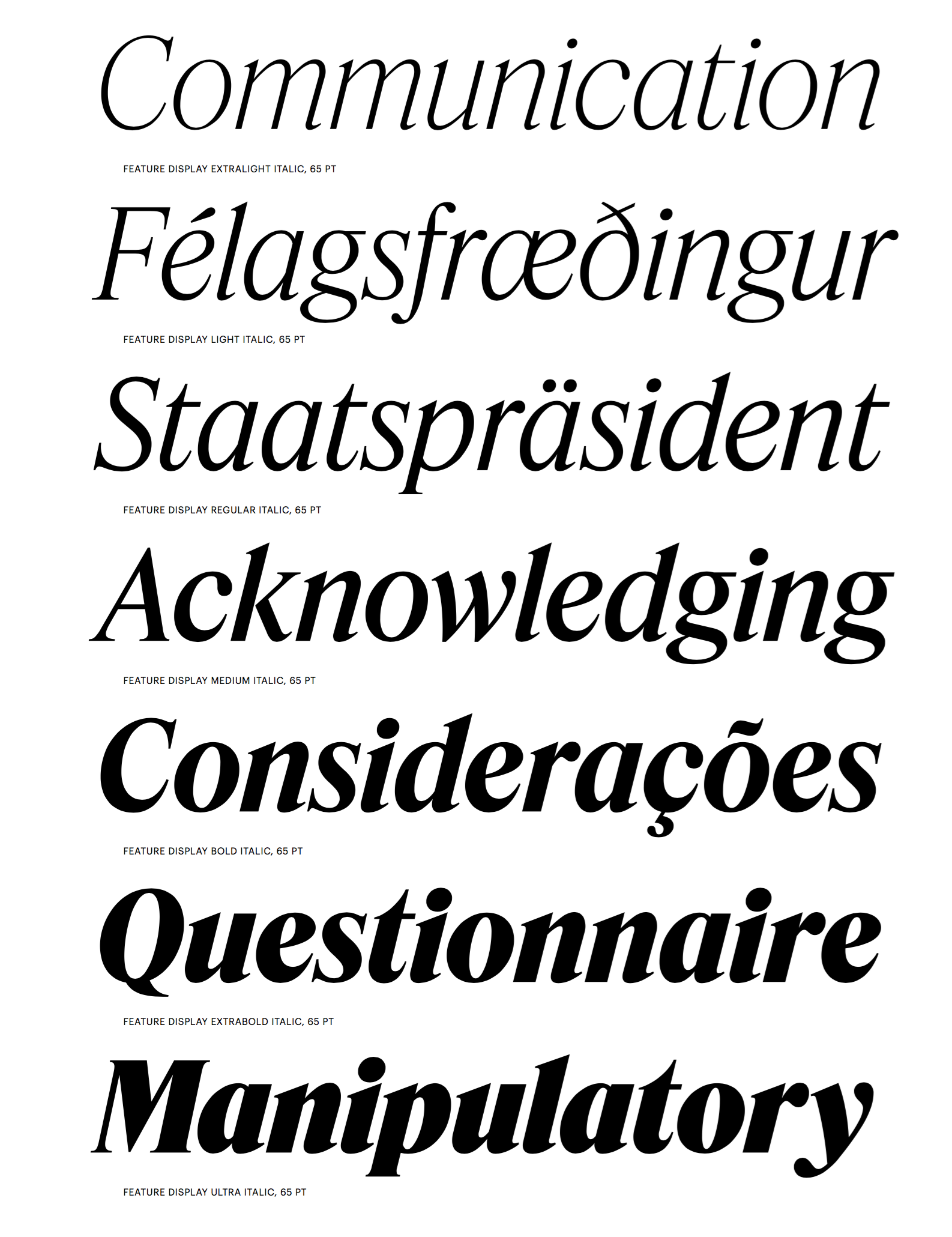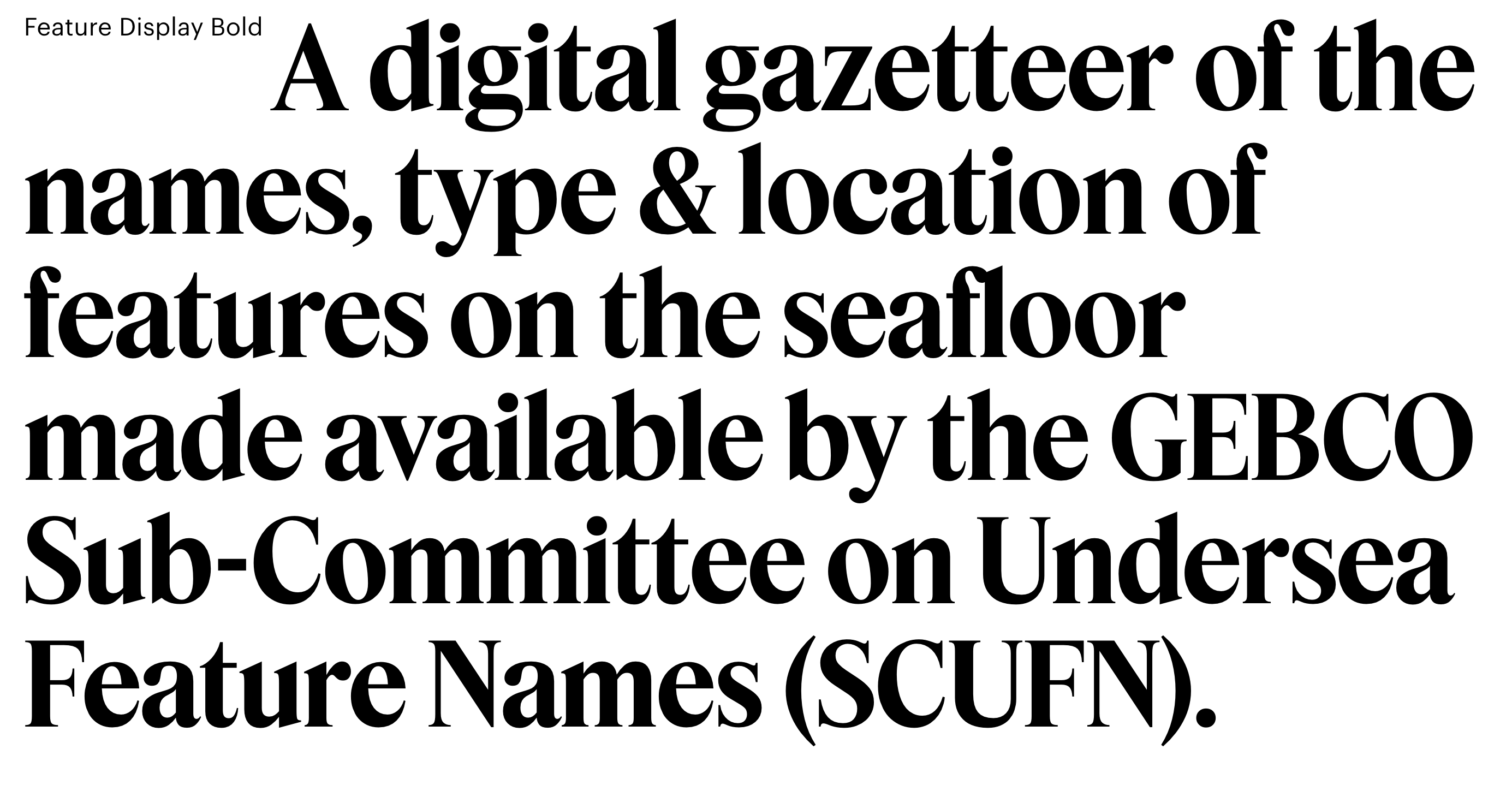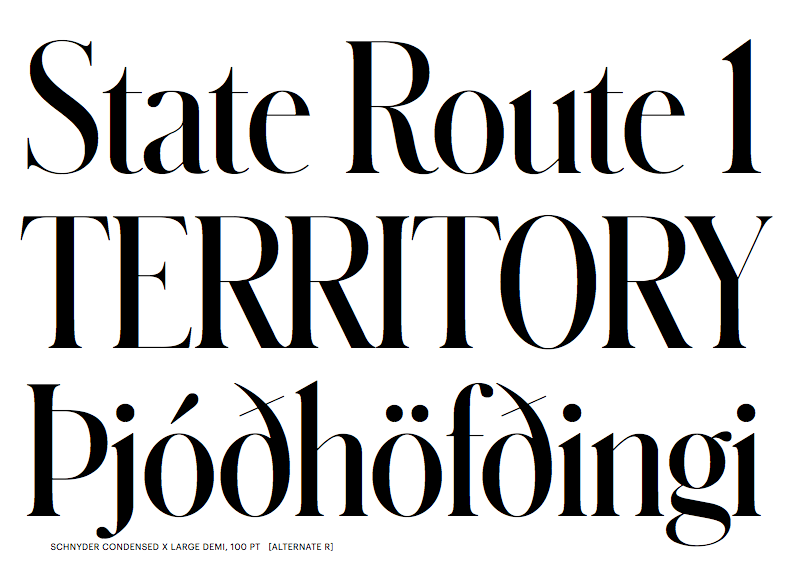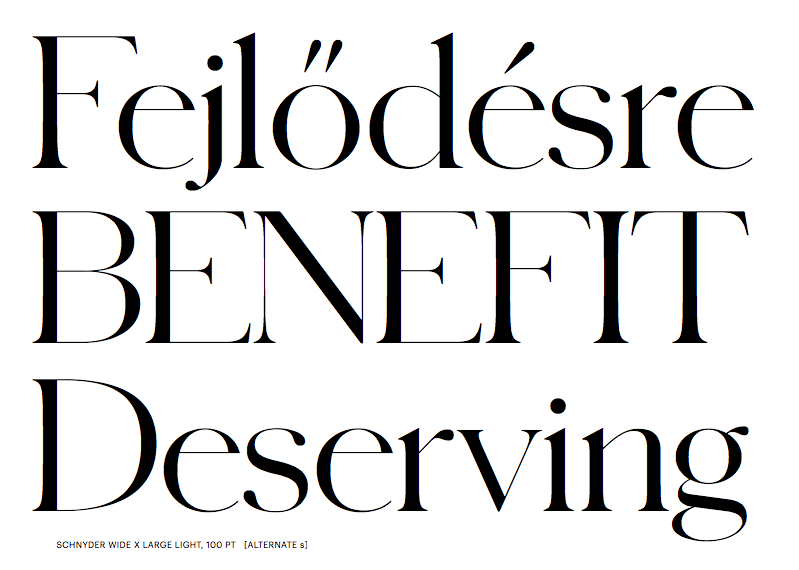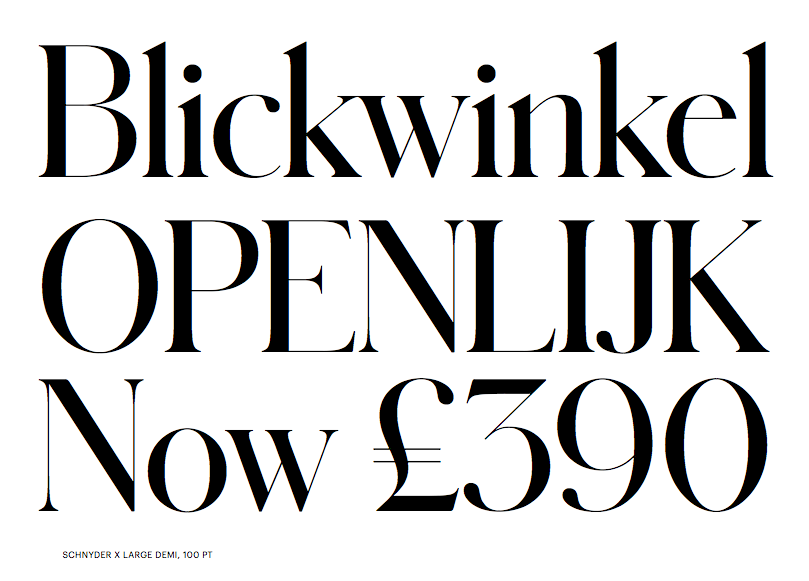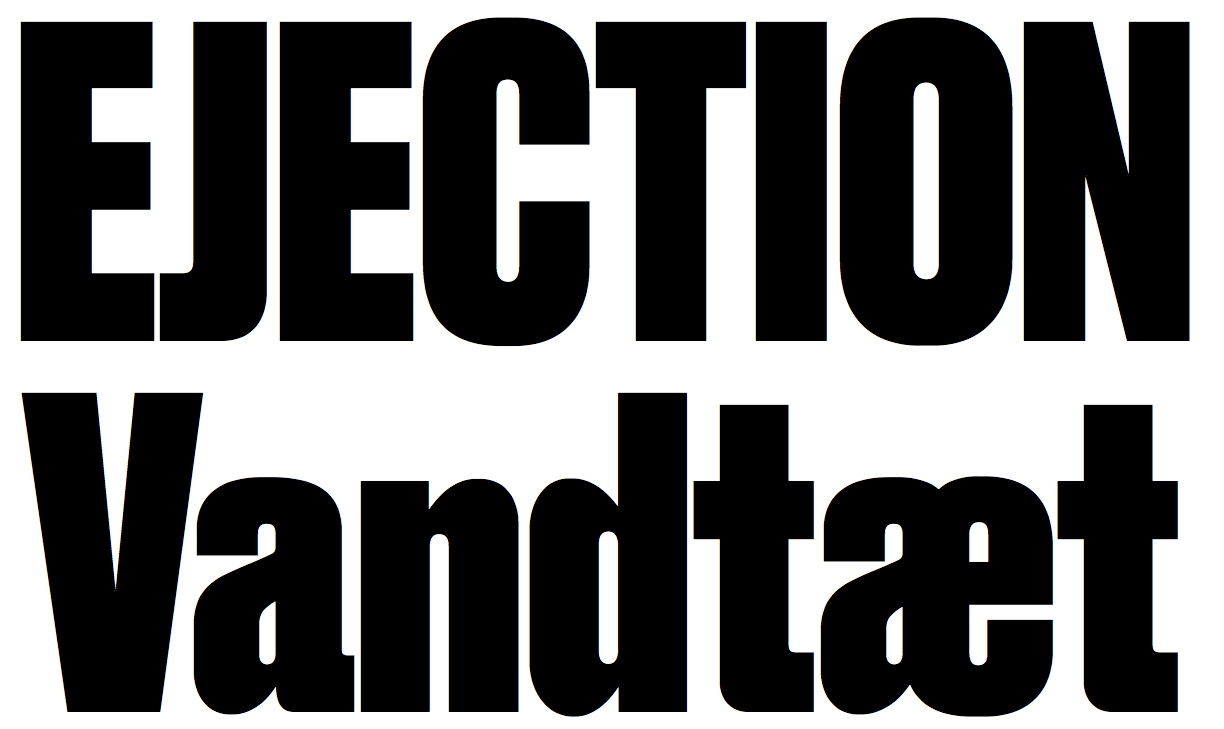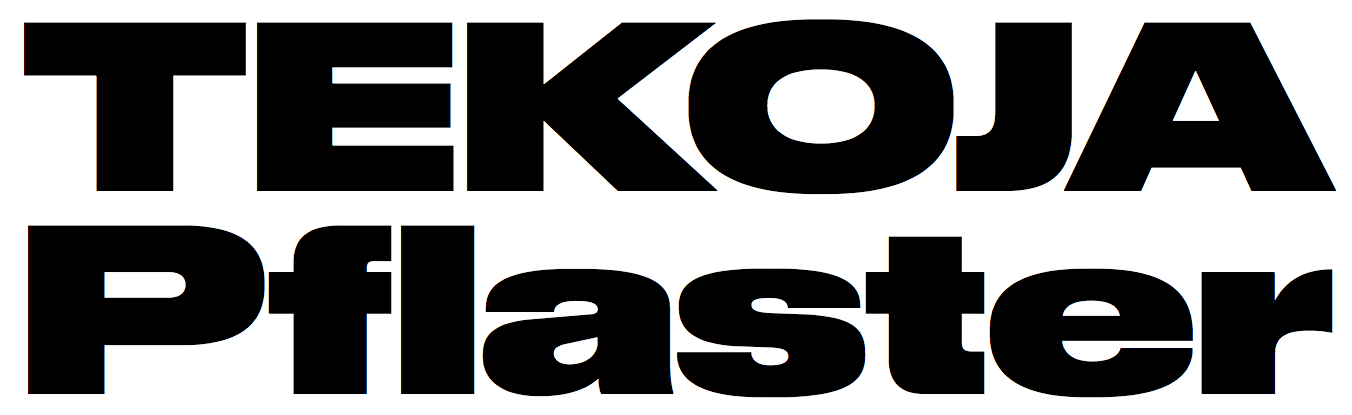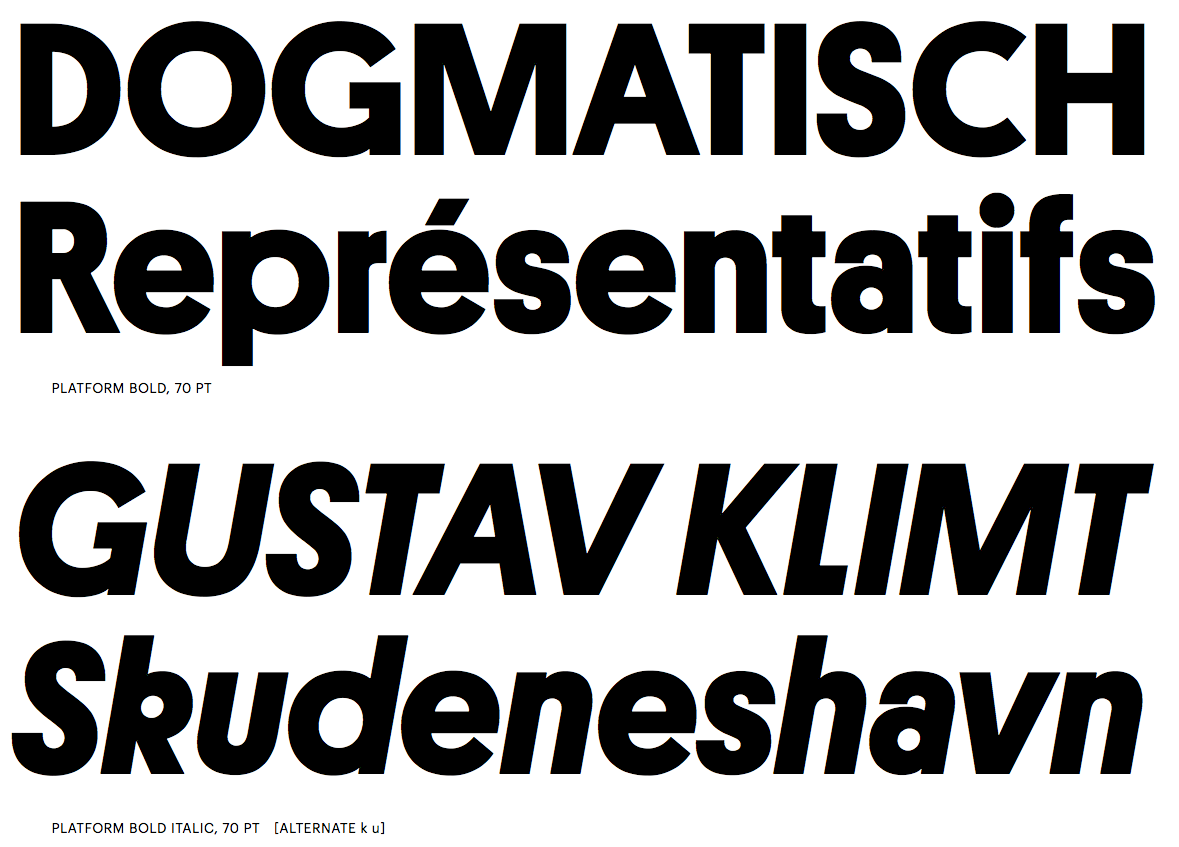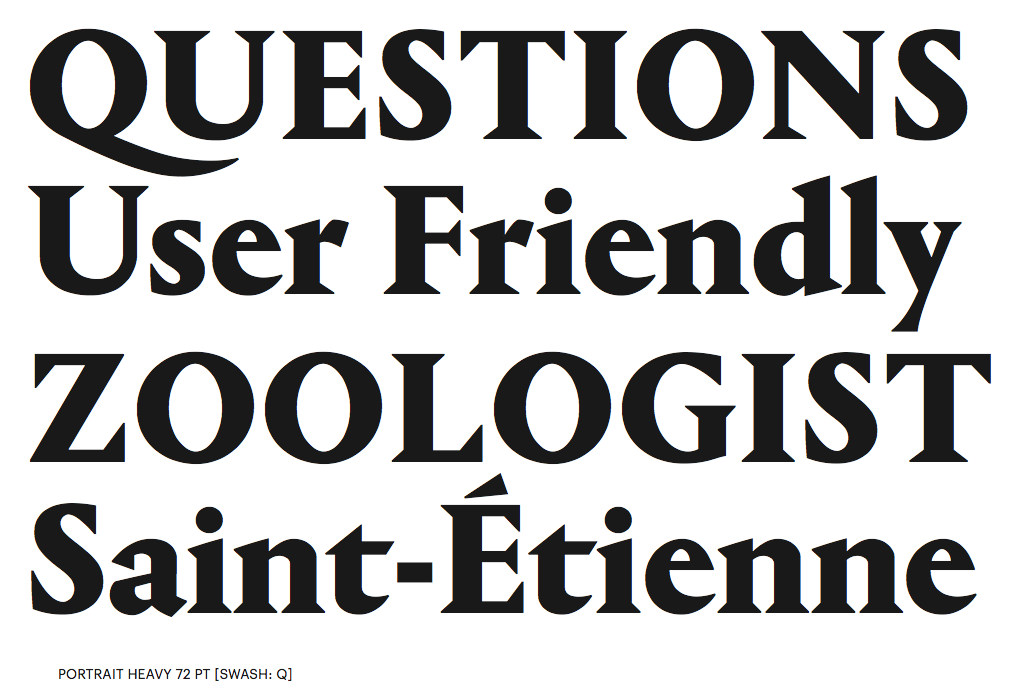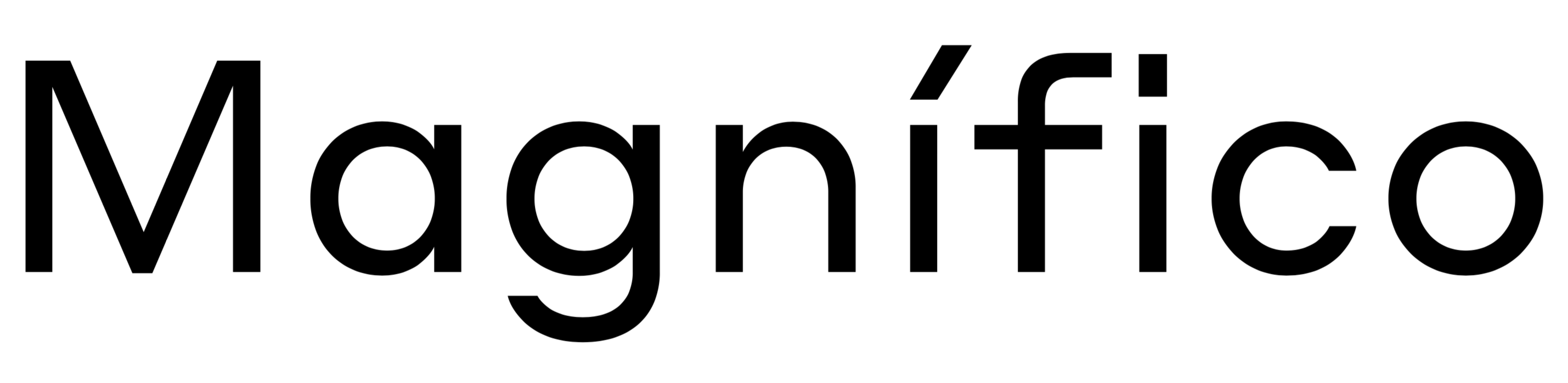
Berton Hasebe
Berton Hasebe (b. 1982, Honolulu, HI) moved from Hawaii to study and work in Los Angeles, where he obtained a BA from Otis College of Art and Design in 2005.
In 2007 he moved to the Netherlands to study type design through the Type and Media Masters course at The Royal Academy of Art in the Hague (KABK). Berton has resided in New York since 2008, and was a staff designer with Commercial Type from 2008 to 2013, when he left to start his own studio. Berton's typefaces have been awarded by the New York and Tokyo Type Directors Club, the ATypI, and the Brno Biennial. In 2012 he was awarded Print magazine's 20 Under 30 Award. Berton currently teaches typography at Parsons and has taught type design at The University of the Arts in Philadelphia and the Type@Cooper Extended Program at The Cooper Union in New York.
His typeface Alda was designed to function at very small sizes while remaining expressive. The bold is macho and delicate at the same time. Alda won an award at TDC2 2009. In the same year Alda was also selected by the Tokyo Type Directors Club to be included in its annual publication. It was published by Emigre.
At Commercial Type he co-designed the extensive family Stag with Christian Schwartz and Ross Milne. Stag started as a small family of slab serifs commissioned for headlines by the US edition of Esquire magazine and eventually grew into a sprawling multi-part family including a flexible sans companion and two additional special effects display variants. Stag Stencil followed in 2009.
In 2010, he published the geometric sans serif family Platform at Commercial Type. It has a gorgeous circle-based hairline.
In 2013, he published a 4-family 20-style French Renaissance typeface family called Portrait (+Text, +Inline, +Text), still at Commercial Type: Portrait started out as an experiment in drawing a display typeface that managed to be both beautiful and brutal, and both classical and minimalist. While its lighter weights are quietly elegant, the heavier weights show the influence of chiseled woodcut forms. Portrait draws its primary inspiration from the Two-line Double Pica Roman (equivalent to 32pt in contemporary sizes) cut by French punchcutter Maître Constantin around 1530 for the printer Robert Estienne. Portrait replaces the delicately modeled serif treatments of Constantin's original with simple, triangular Latin serifs, reimagining the Renaissance forms in a contemporary light. Portrait Text resembles the text types attributed by the printing historian Hendrik Vervliet to Constantin and used by the printer Estienne in the 1530s, which had a lighter and more open texture than the text types that preceded them, and marking the move to more elegant type that culminated in the work of Claude Garamont. The stripped-back simplicity of the Latin serifs gives Portrait a cleaner and sharper tone than a typical Renaissance oldstyle-influenced text face, bringing an active personality to text.
In 2015, he created the sans headline typeface families Druk, Druk Text, Druk Wide, Druk Condensed and Druk Text Wide: Druk is a study in extremes, featuring the narrowest, widest, and heaviest typefaces in the Commercial Type library to date. Starting from Medium and going up to Super, Druk is uncompromisingly bold. It was meant as a companion of Neue Haas Grotesk. Of the families in the Druk collection, Druk Condensed is the most explicit homage to Willy Fleckhaus. Originally designed for the 2011 Year in Review issue of Bloomberg Businessweek, its flat sides make letters and words snap together in a clean and satisfying way.
For MittMedia, he made the corporate sans typeface Duplex (2016).
Still in 2016, Berton Hasebe published Styrene at Commercial Type. Their blurb: Styrene, a new sans serif by Berton Hasebe, is his latest exploration of proportion and simplicity in type design. The initial inspiration for the family was a charmingly awkward sans serif shown in an early 20th century Dutch type specimen. However, Styrene has an entirely ahistorical attitude. Its name was inspired by the purposefully synthetic feeling to its curves and geometry. The family is characterized by its proportions: typically narrow characters like f j r and t are hyperextended and flattened, adding openness in unexpected places. Styrene's two widths offer different textures in text: version A is dogmatically geometric, with a stronger overall personality, while version B is narrower for more reasonable copyfit, though not truly condensed.
Schnyder (Commercial Type) was designed by Berton Hasebe and Christian Schwartz for the 2013 redesign of T, the New York Times Style Magazine by creative director Patrick Li and his team. Schnyder has the high contrast typical of a fashion typeface and has a large number of alternates. The stem thicknesses in each weight are identical across the widths, an unusual feature that allows the widths to be mixed freely in headlines, even within single words. It features three weights, four widths, and four optical sizes. Production assistance by Hrvoje Zivcic and Miguel Reyes. Schnyder Wide, Condensed and X Condensed were published in 2018.
In 2020, he released Review (Condensed, Poster, Regular) at Commercial Type, which writes: Berton Hasebe originally drew Review (née Kippenberger) for T: The New York Times Style Magazine. In 2018, a new editor in chief pushed for a complete reimagining of the magazine. What had primarily been an image-focused publication evolved into a text-driven one, with the squarish, commanding Review doing much of the heavy lifting. To facilitate tight setting both horizontally and vertically, Hasebe sheared off Review's overshoots and blunted its exterior curves, producing a dynamic tension with its round counters.
Produkt (2014, Christian Schwartz and Berton Hasebe) is Graphik with slabs added on.
Christian Schwartz and Berton Hasebe originally designed Feature for T: The New York Times Style Magazine in 2018, and wrote: Diagonal stress, mismatched contrast between main strokes and serifs, and sharply angled head serifs conspire to give the face tension, dynamism, and immediacy. The collection has been expanded in 2021 for release by Hrvoje Zivcic, who expanded the weight range and drew italics for the entire collection. Feature Collection now includes Feature Text, Feature Display and Feature Deck. Feature
Berton Hasebe